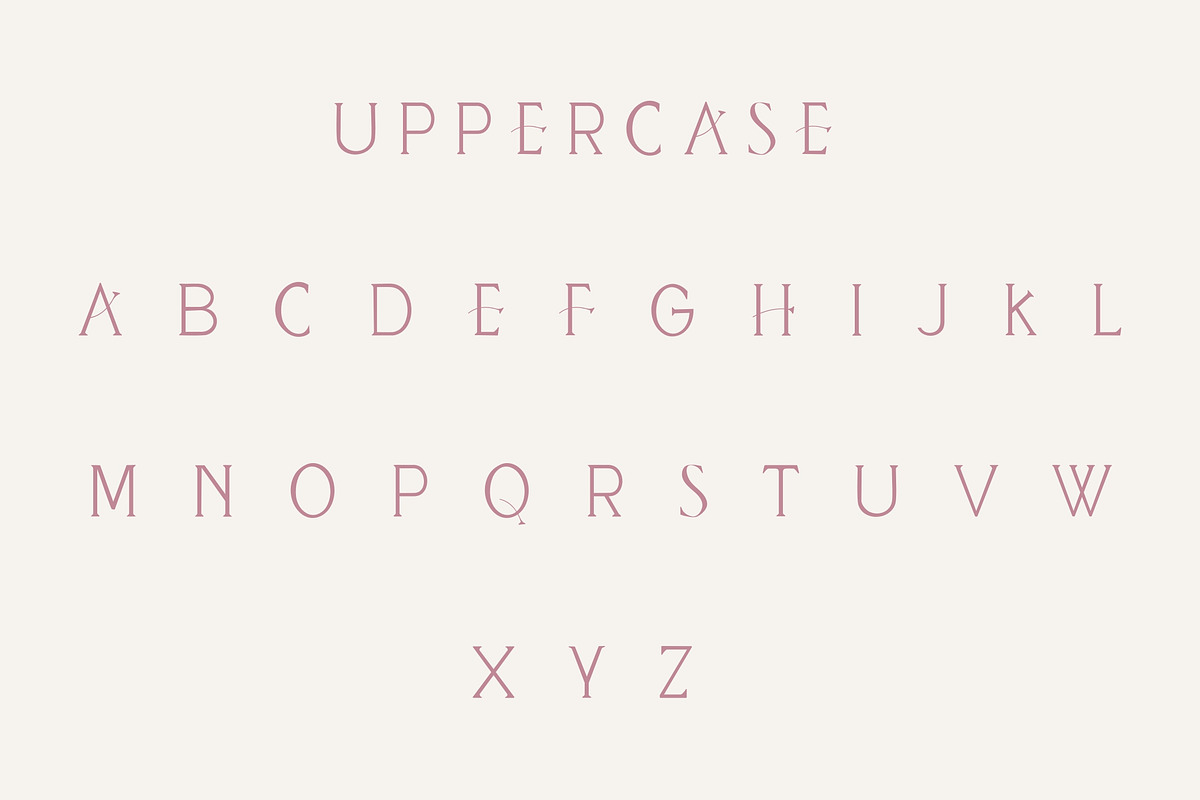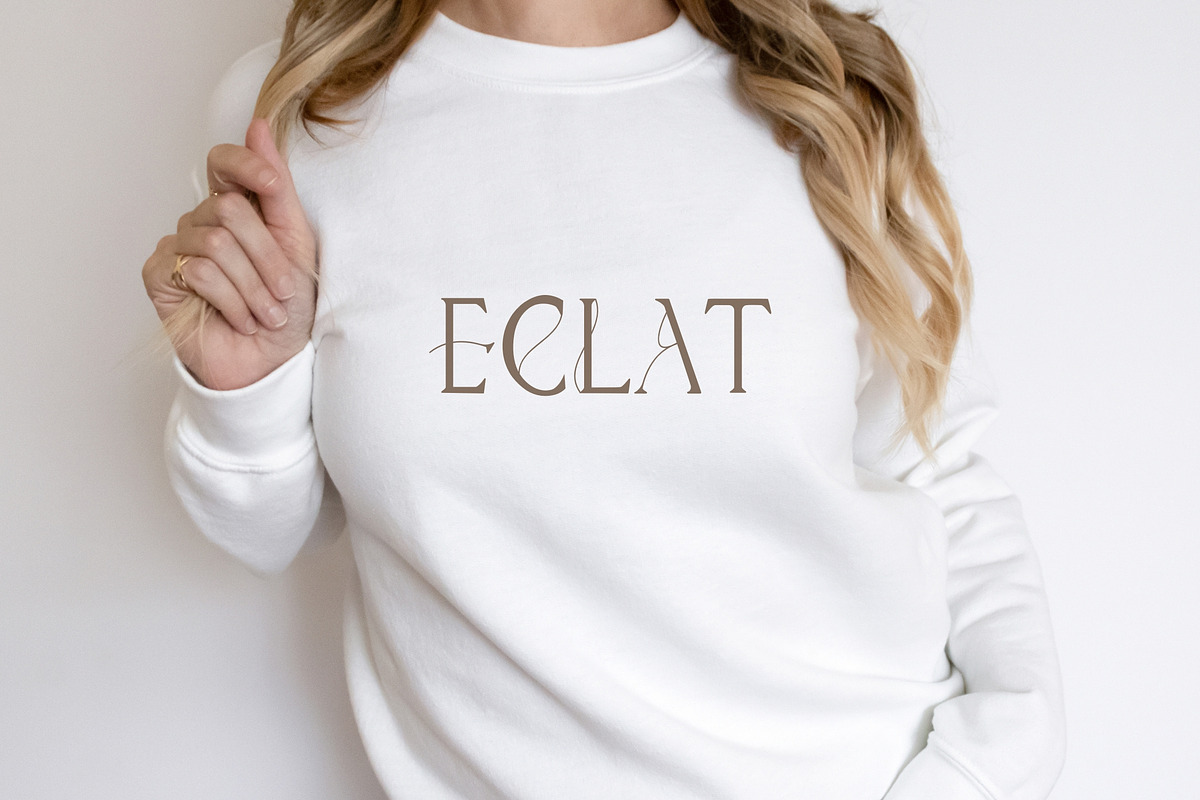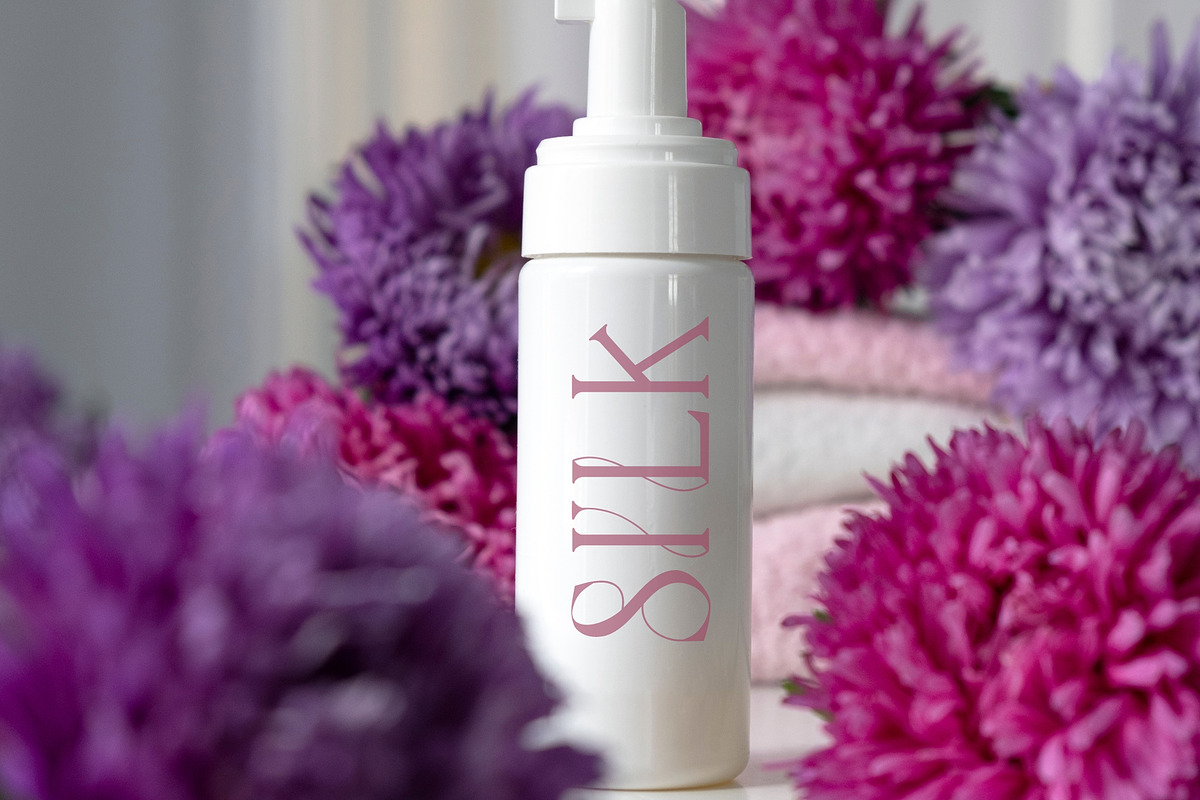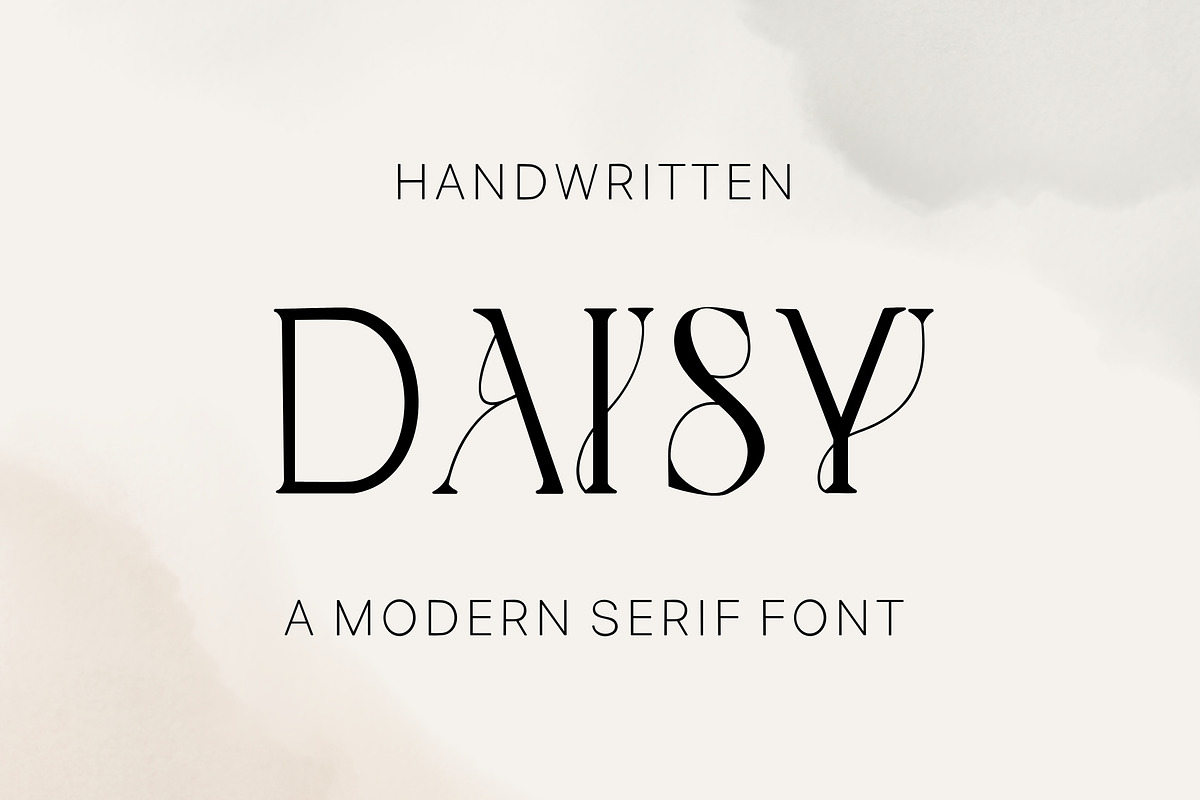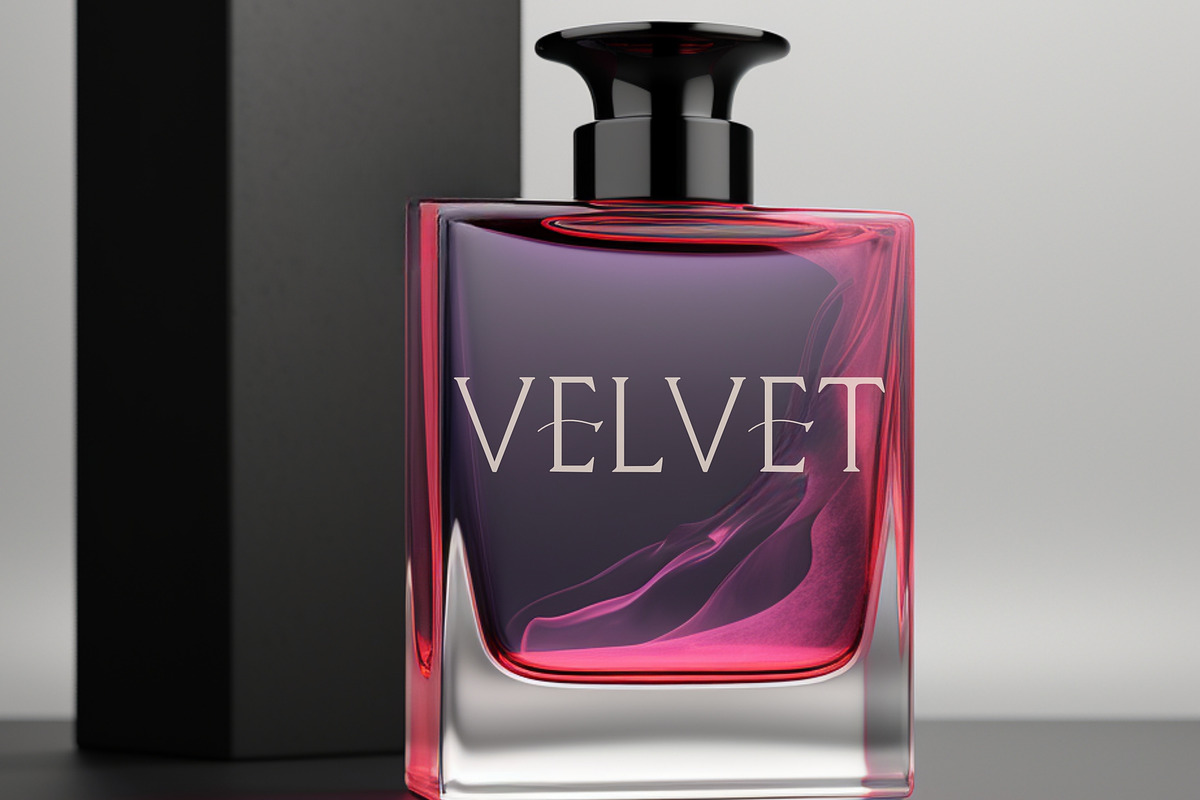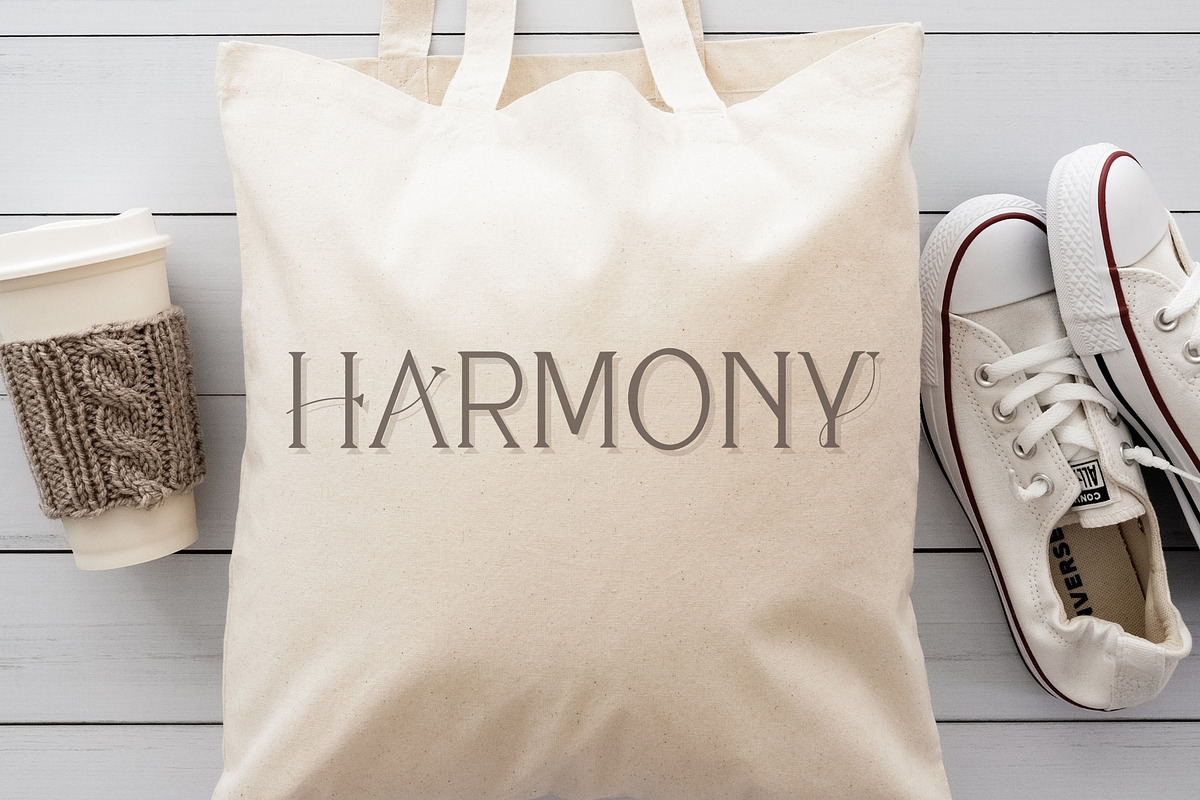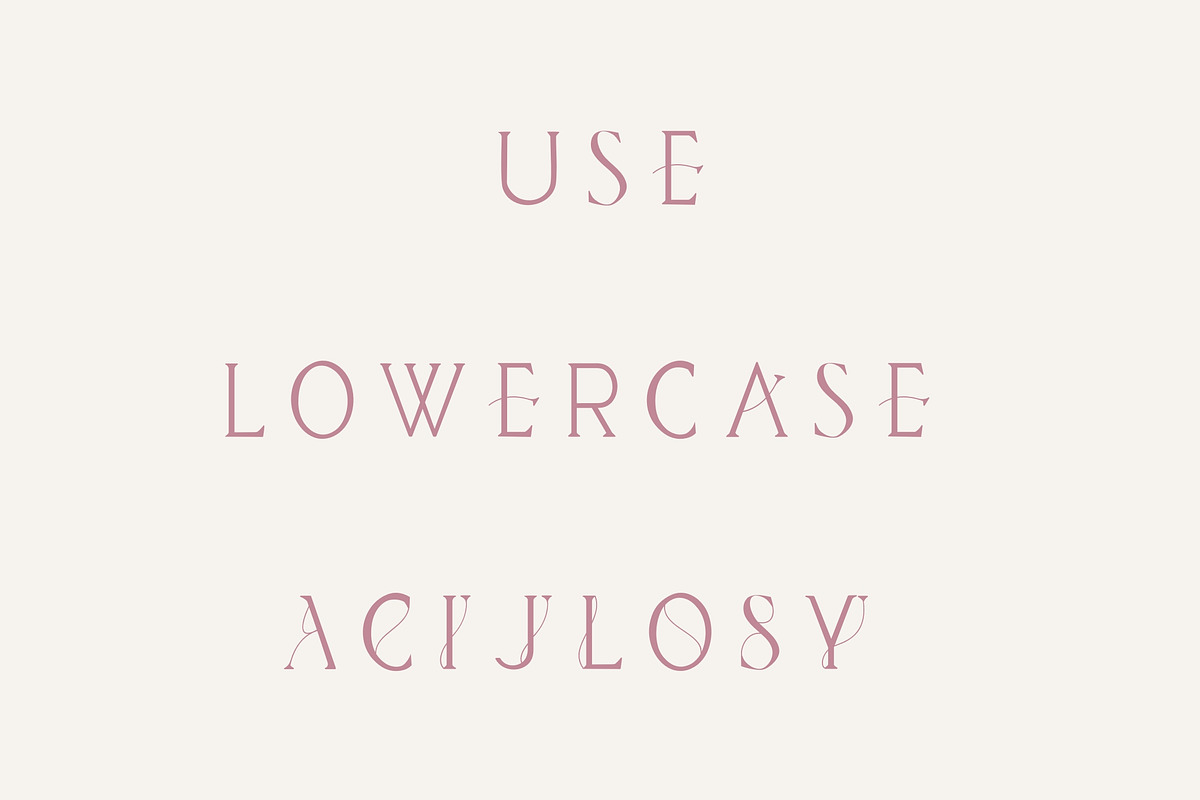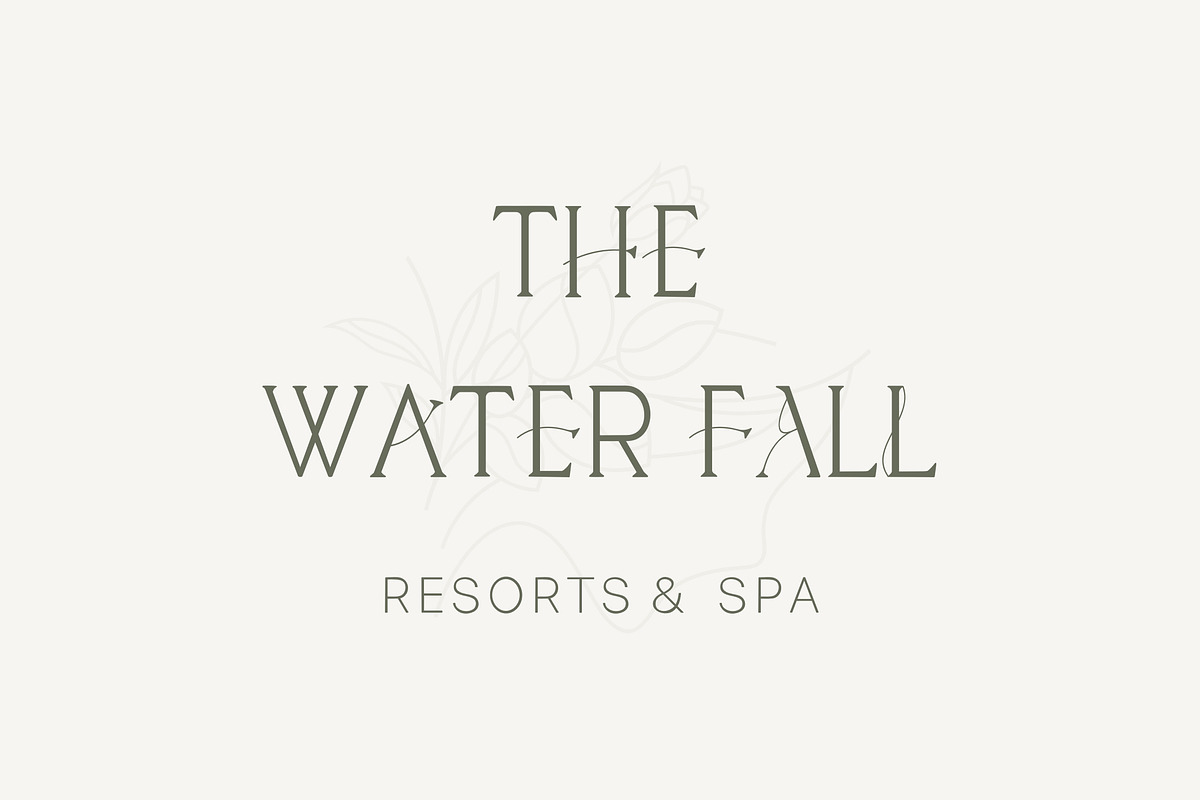
Daisy - Modern handwritten serif
Daisy is a modern handwritten serif font.
This font is perfect for advertising, headings, blogs, logos, branding and more!
This font would pair well with a sans & script style & also it’s speak loud it’s own.
Features: Uppercase, Lowercase ( special characters for a,c,I,j,l,o,s,y) Numbers